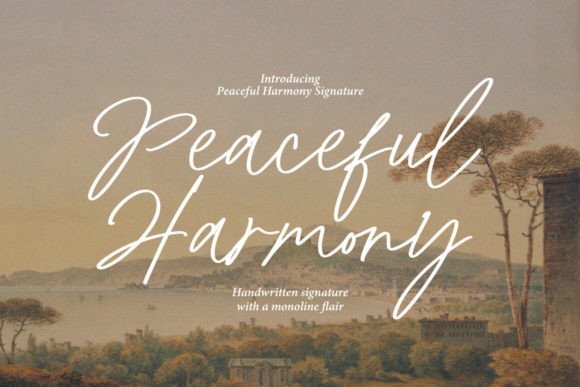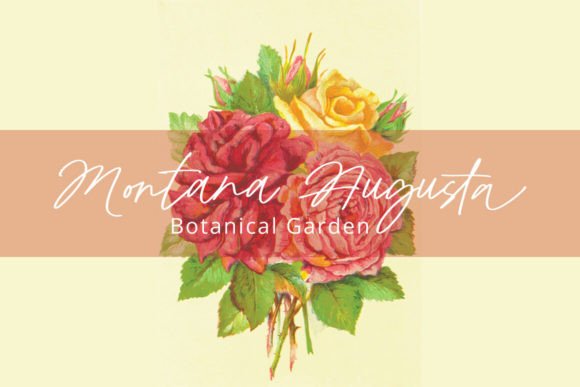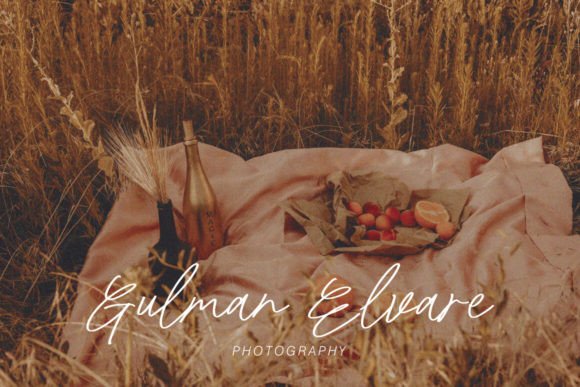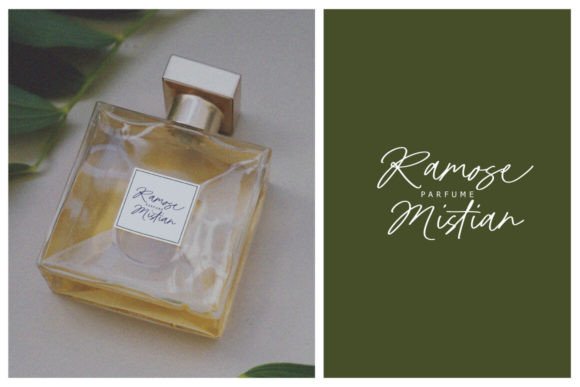
Peaceful Harmony Font: Elegant Monoline Signature for Branding & Wedding Designs
About the Peaceful Harmony Font
Make a bold statement with Peaceful Harmony Font, a powerful and memorable font. Peaceful Harmony is a signature font with a smooth, flowing style. Its monoline design means each letter is drawn with a single, consistent line, giving it a clean and elegant look. Perfect for adding a personal touch to invitations, logos, or quotes, this font feels both modern and timeless.
Its elegant, minimalist nature makes Peaceful Harmony ideal for branding projects requiring a sophisticated yet approachable feel, particularly logos, short headlines, and social media graphics. It also works well on high-quality packaging where the clean lines and subtle curves can enhance a premium product image. However, its delicate stroke weight makes it unsuitable for body text or lengthy passages, and its limited character set might restrict its use in UI design.
Pairing Peaceful Harmony with a geometric sans-serif like Montserrat would create a balanced, contemporary feel. For a warmer aesthetic, consider pairing it with a classic serif such as Garamond or a script font like Great Vibes, depending on the desired level of formality. These combinations offer visual contrast while maintaining a cohesive design.
Peaceful Harmony projects a calm, sophisticated, and slightly romantic personality, best suited to brands focused on wellness, beauty, or high-end products. Its refined simplicity makes it a versatile choice when a touch of understated elegance is required.
Peaceful Harmony Font Example